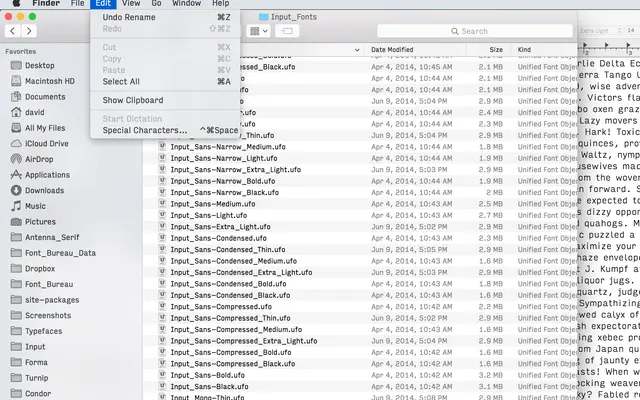
Input
A 168-style type system built for programming, offering monospaced and proportional variants across sans and serif forms with an unusually wide range of widths and weights.
Designed specifically for code editors, Input addresses the practical demands of programming with easily distinguishable characters, large punctuation and generous letterspacing suited to dense onscreen text. The system spans three widths, seven weights and two styles per subfamily, with both monospaced and proportional cuts available in sans and serif forms, totalling 168 styles. Cyrillic support was developed in consultation with Russian type designer Maria Doreuli, giving the family broader script coverage than most coding fonts. Available as a free download for private use in code editors.
Input is a programming-focused type system offering both monospaced and proportional variants across sans and serif subfamilies, with the monospaced forms being its primary use case and core identity.